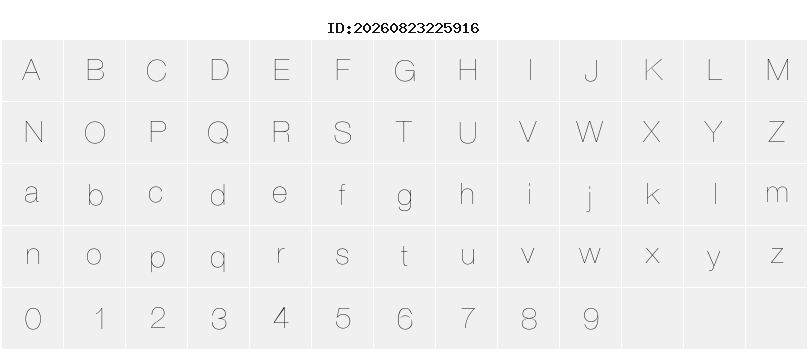
Sans Preview
About Sans.ttf
Sans.ttf is a modern, elegant sans-serif font designed for ultimate readability and visual harmony. Perfect for branding, headlines, web design, and print materials.